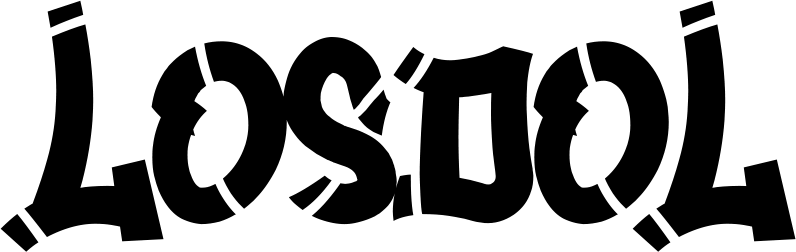
Losdol Font
Losdol is a graffiti font with cuts and artsy characters and a young and rebel soul! It will give a modern and cool look to your texts and make good street styles. This font can be used to make unique tattoos, shirts and jewelry prints, and graffitis. All the letters are capitalized.